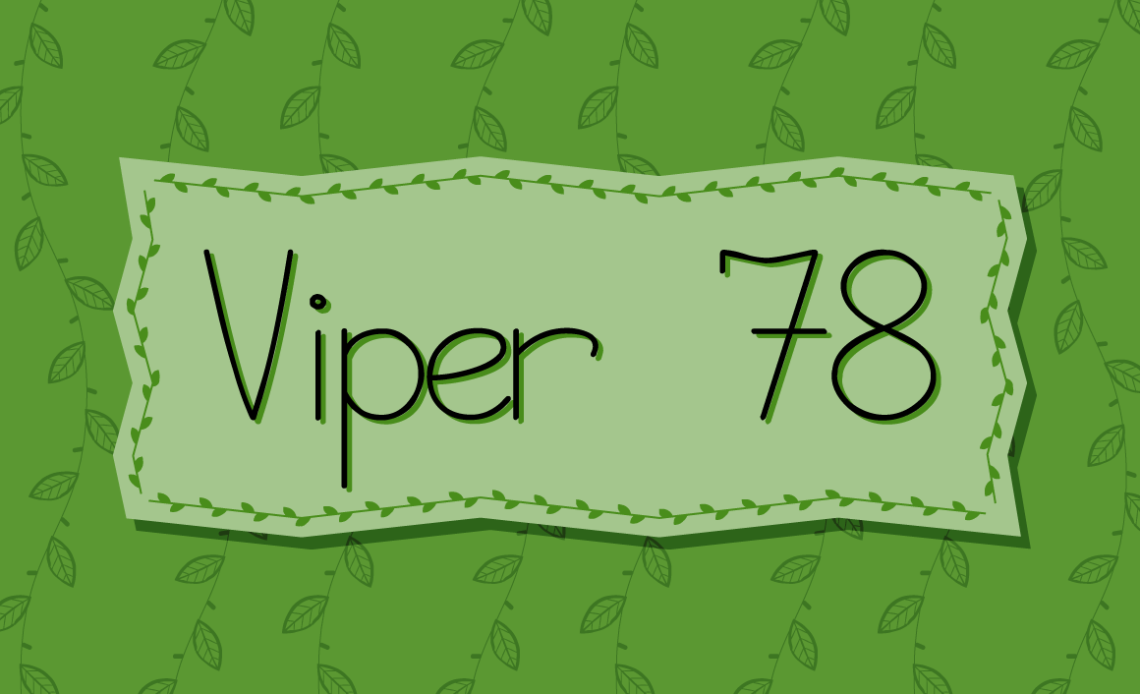
Welcome to the realm of Viper 78 Font, a script font that will transform your designs with a charismatic flair. Crafted with a monoline, thin structure, this font exudes a natural, handwritten feel, capturing the essence of personal expression.
Immerse yourself in the world of Viper 78, where creativity takes center stage. With its captivating charm, this font will add a touch of whimsy and playfulness to your projects. Its delicate strokes and smooth lines flow effortlessly, creating an engaging visual experience that will leave a lasting impression.
Unleash your imagination and let the Viper 78 Font guide you on a journey of artistic exploration. Whether you're a seasoned designer or just starting, this font will elevate your work to new heights. From headers to body text, Viper 78 effortlessly blends with your designs, adding warmth and personality to every word.